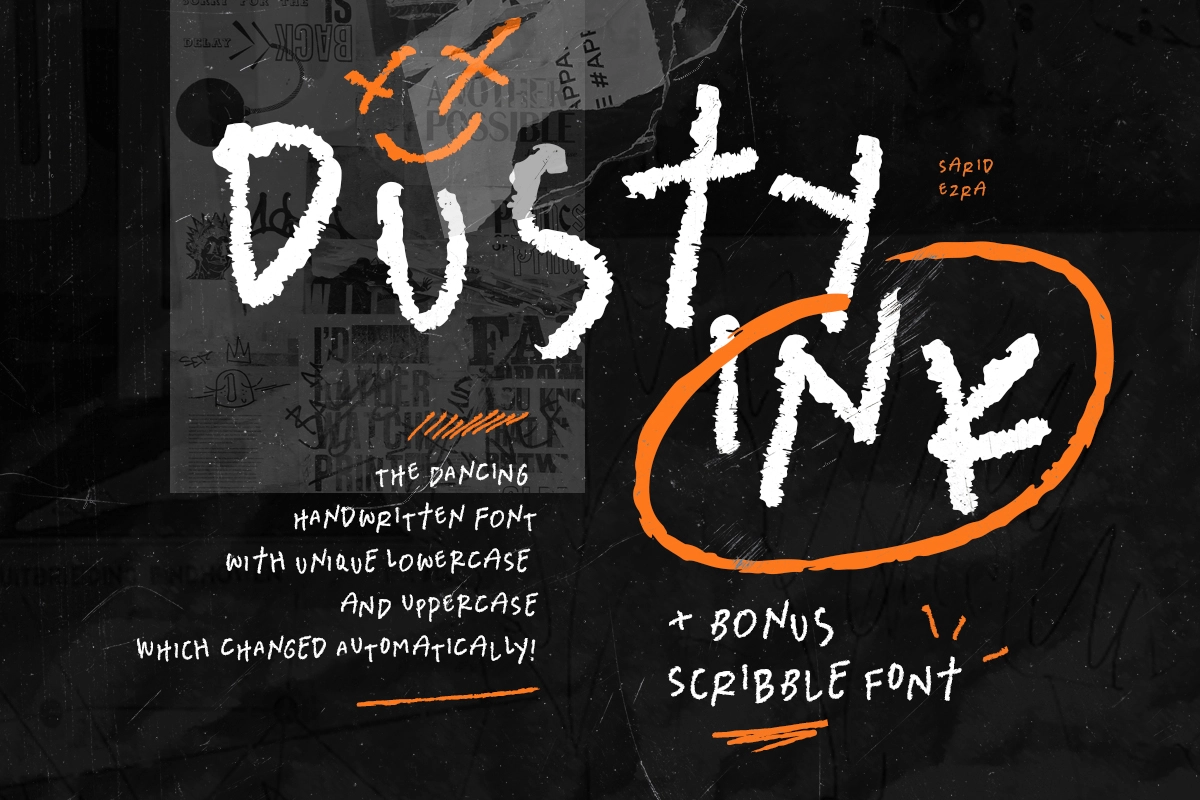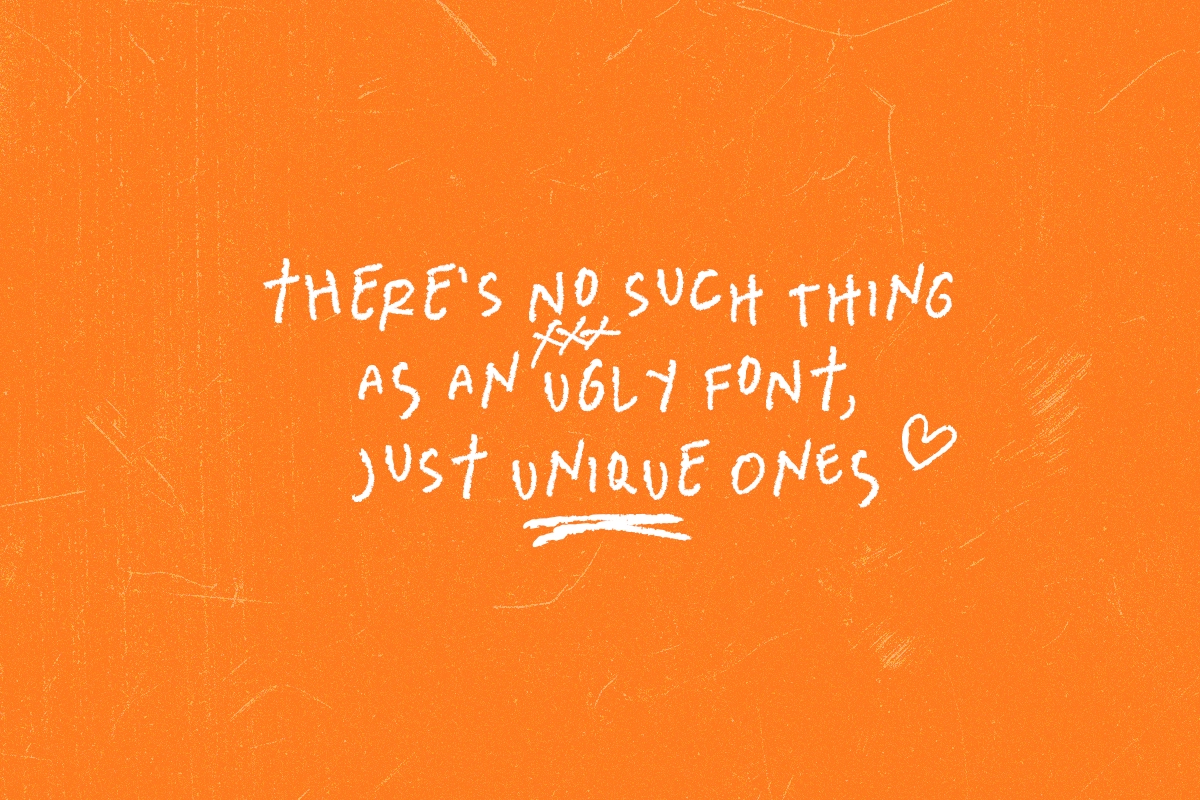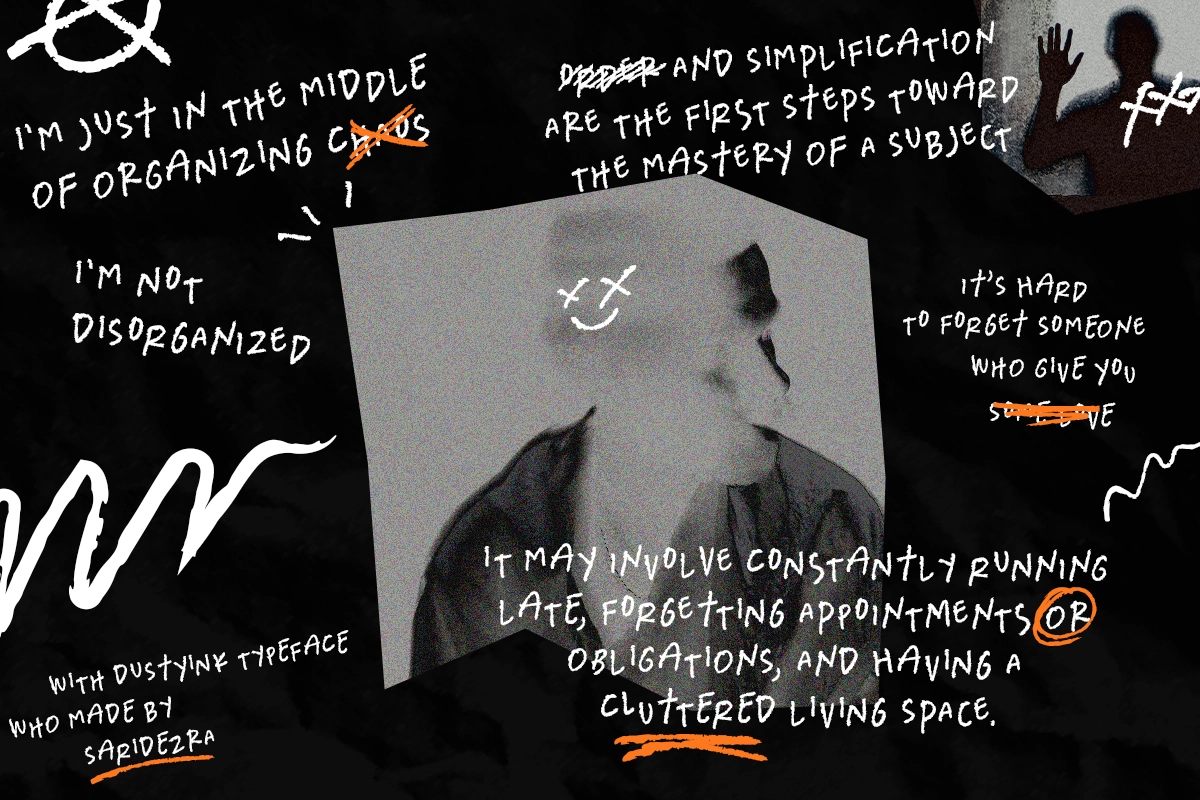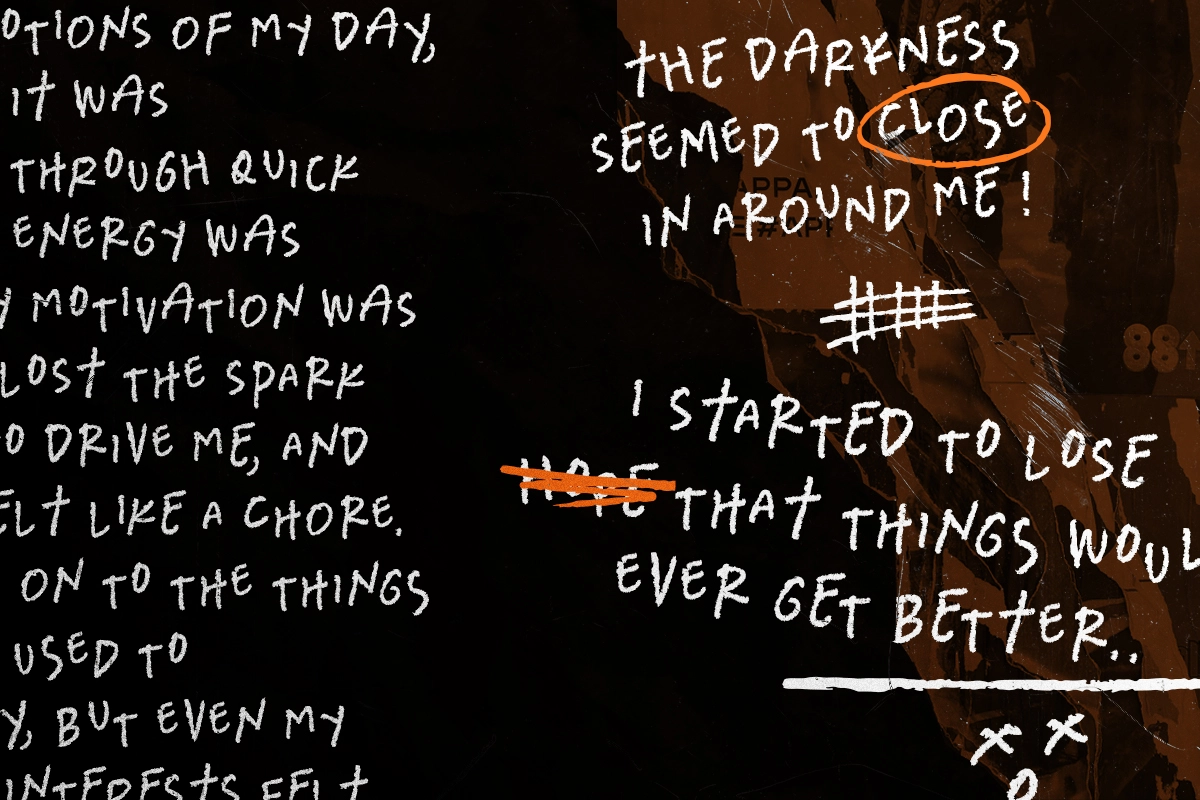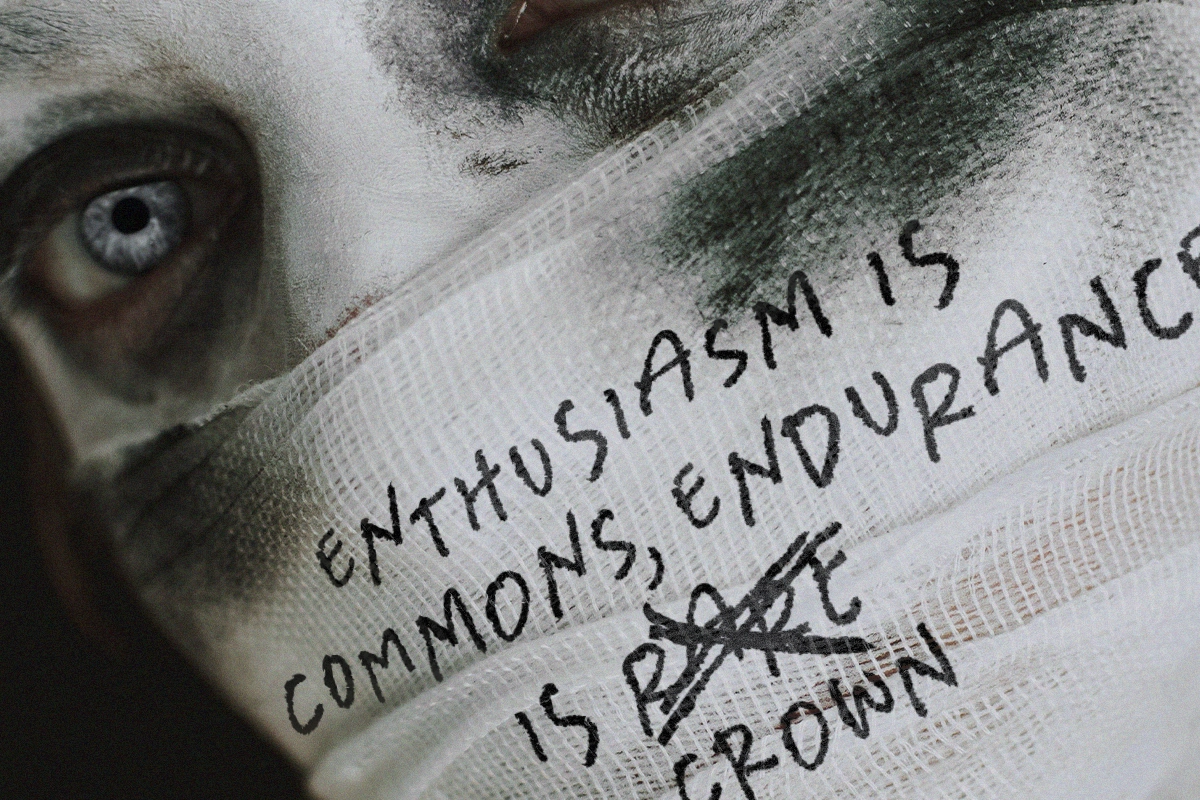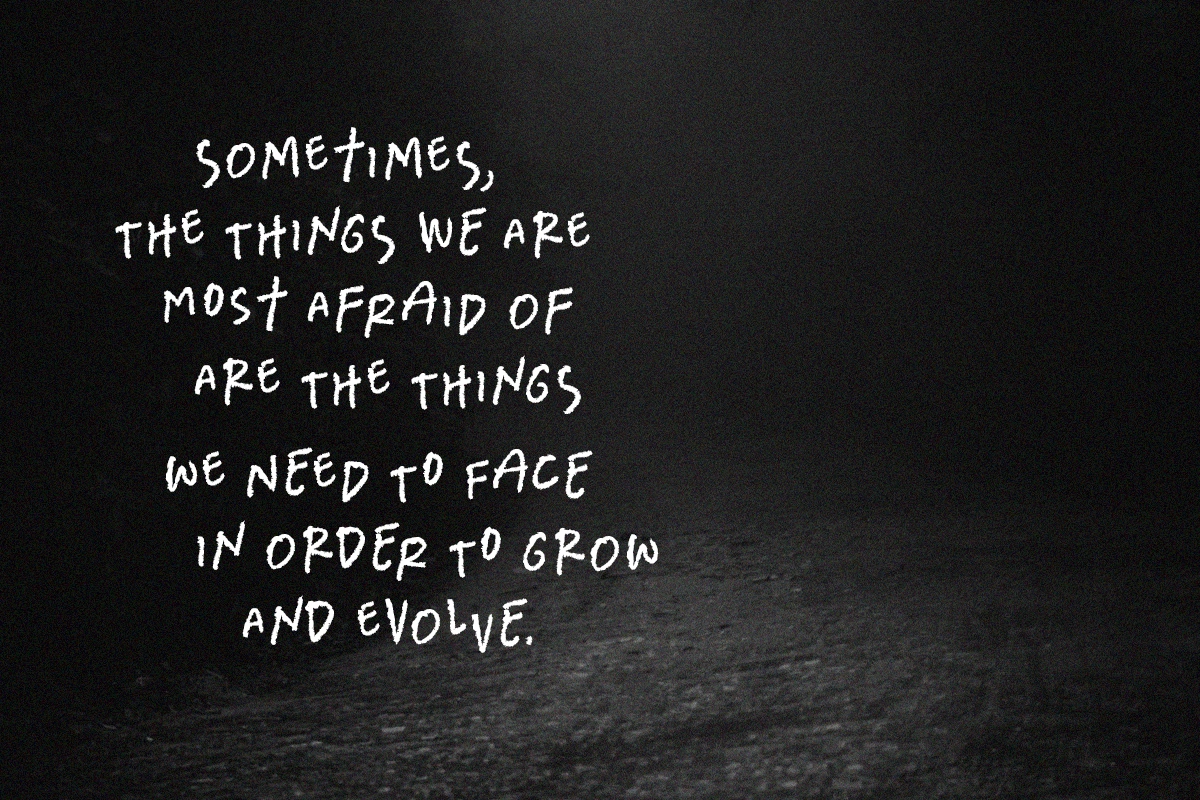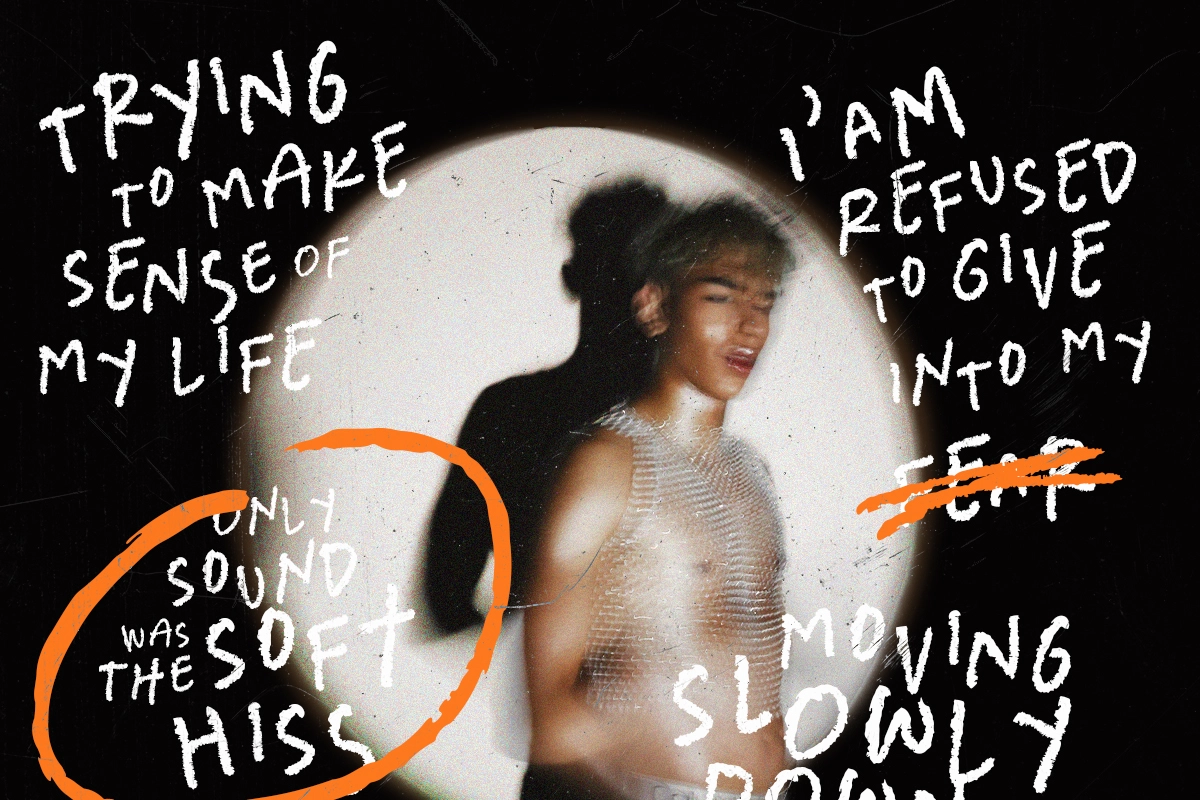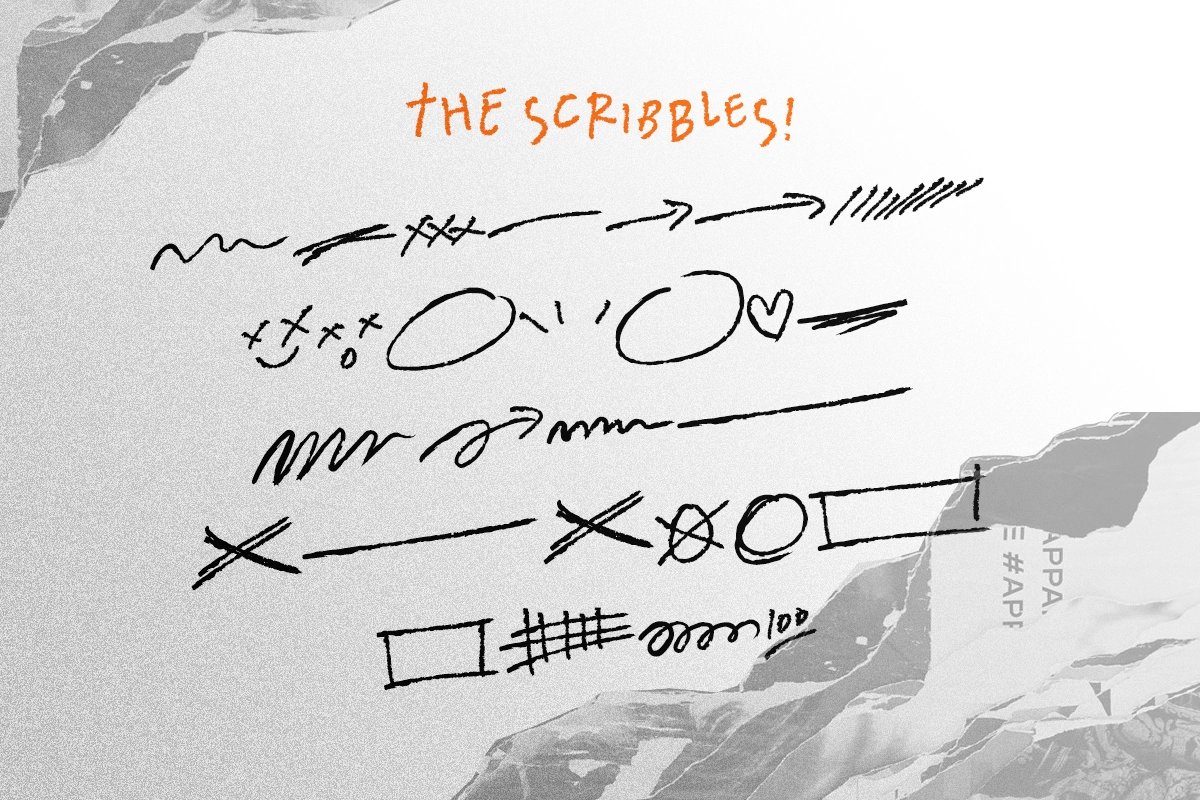
Dusty Ink + Scribble Font
Dusty Ink is a quirky and dancing handwritten font with unique lowercase and uppercase that you can use in the same word randomly. The best part is, you don't have to do it manually. It will change automatically when you activate the Contextual Alternates feature in Opentype Feature that you can see in Adobe Photoshop/Illustrator. Comes with Scribble in font format that will complete and compliment your projects. You can use this fonts for any project such as banding, street art, quotes, and tagline. This font also support Multi Language!